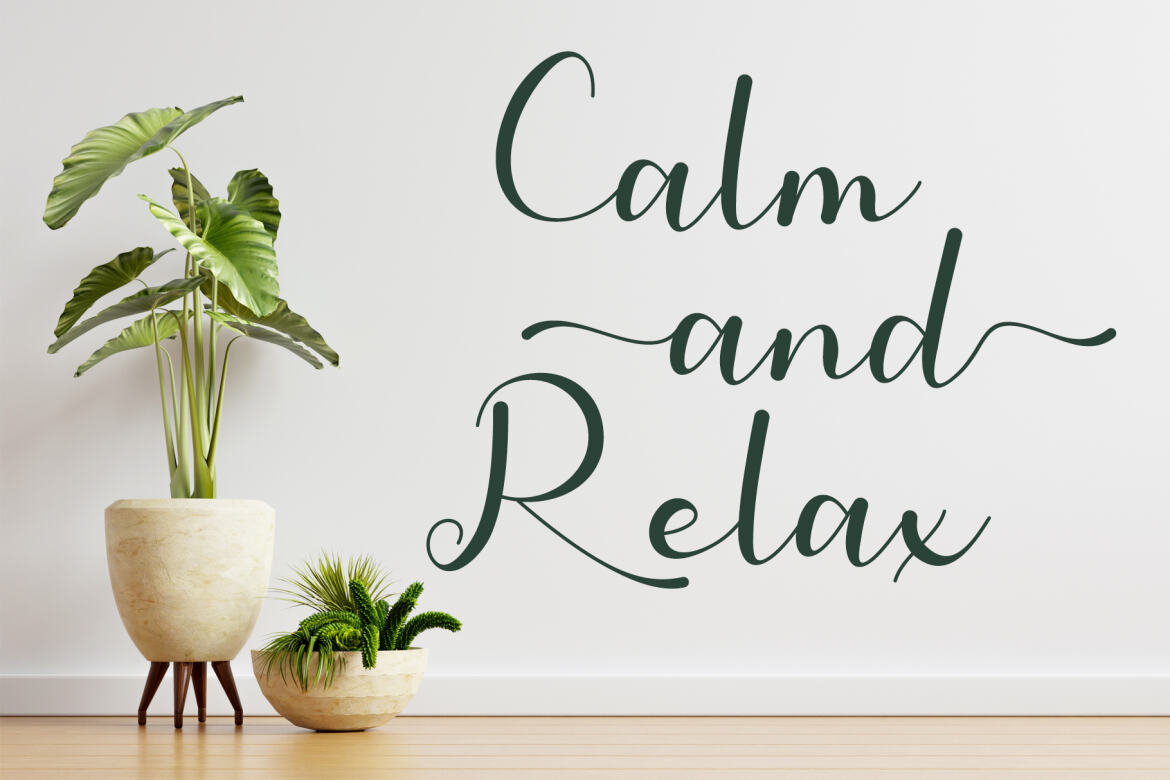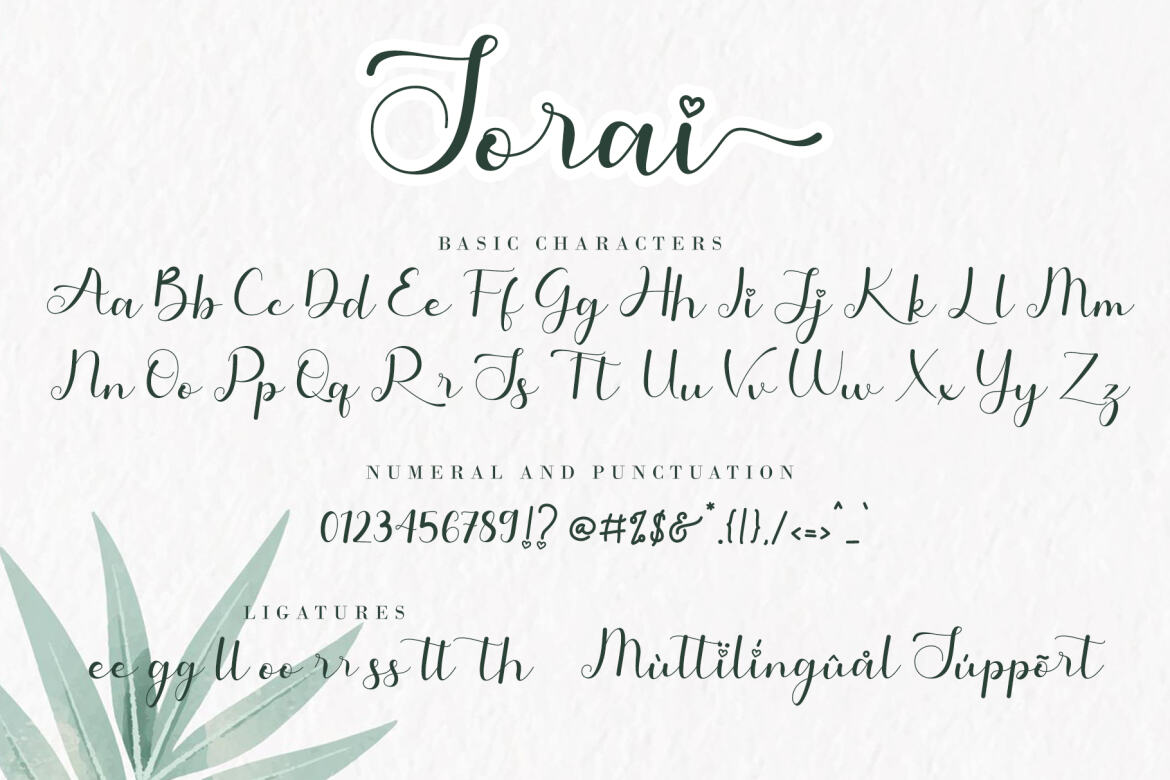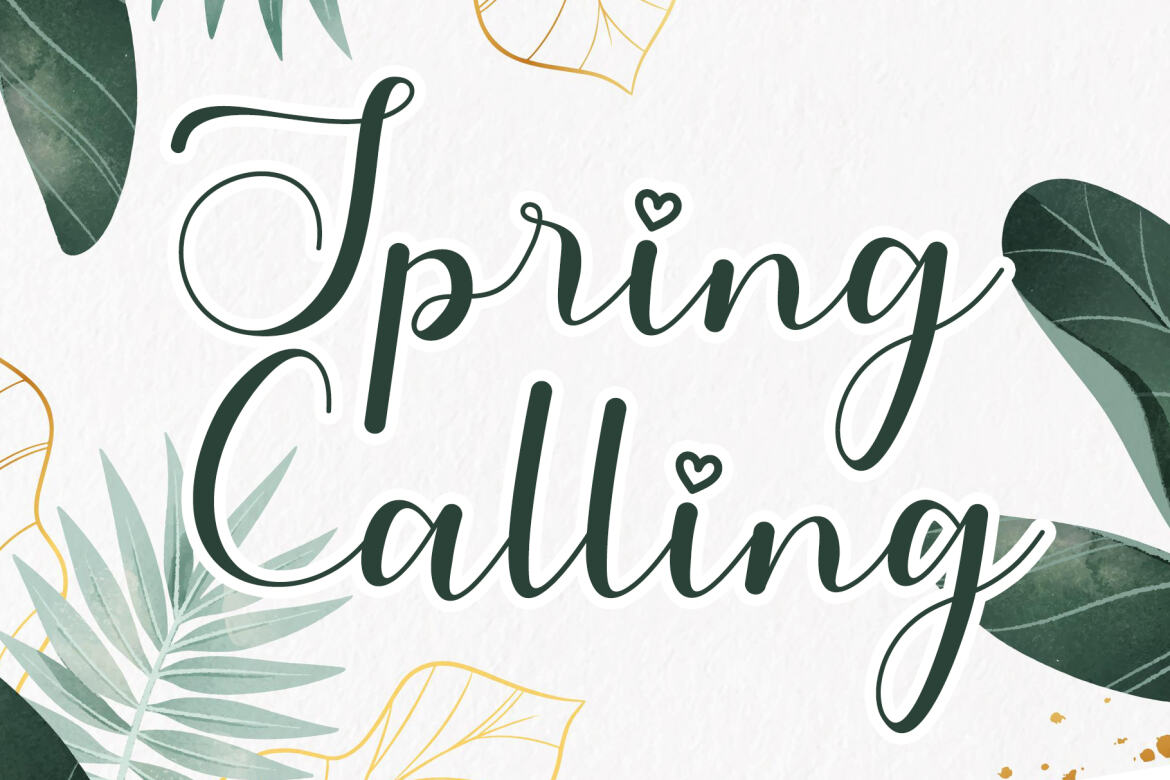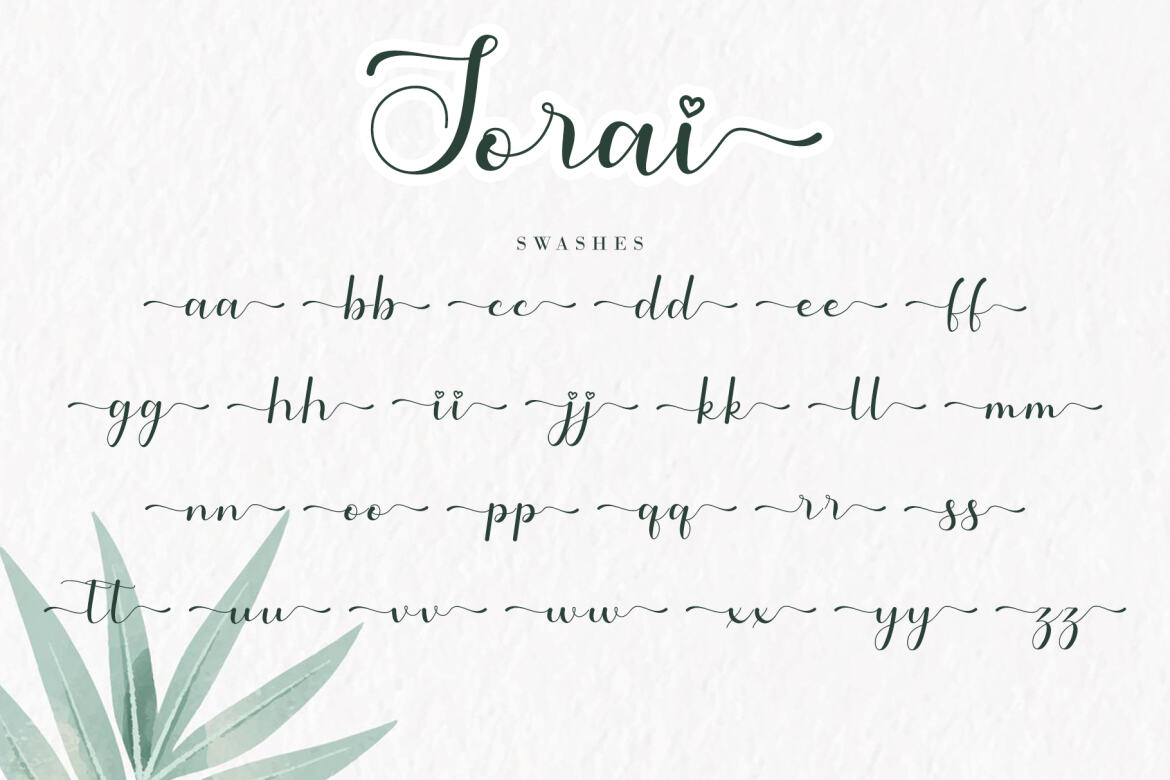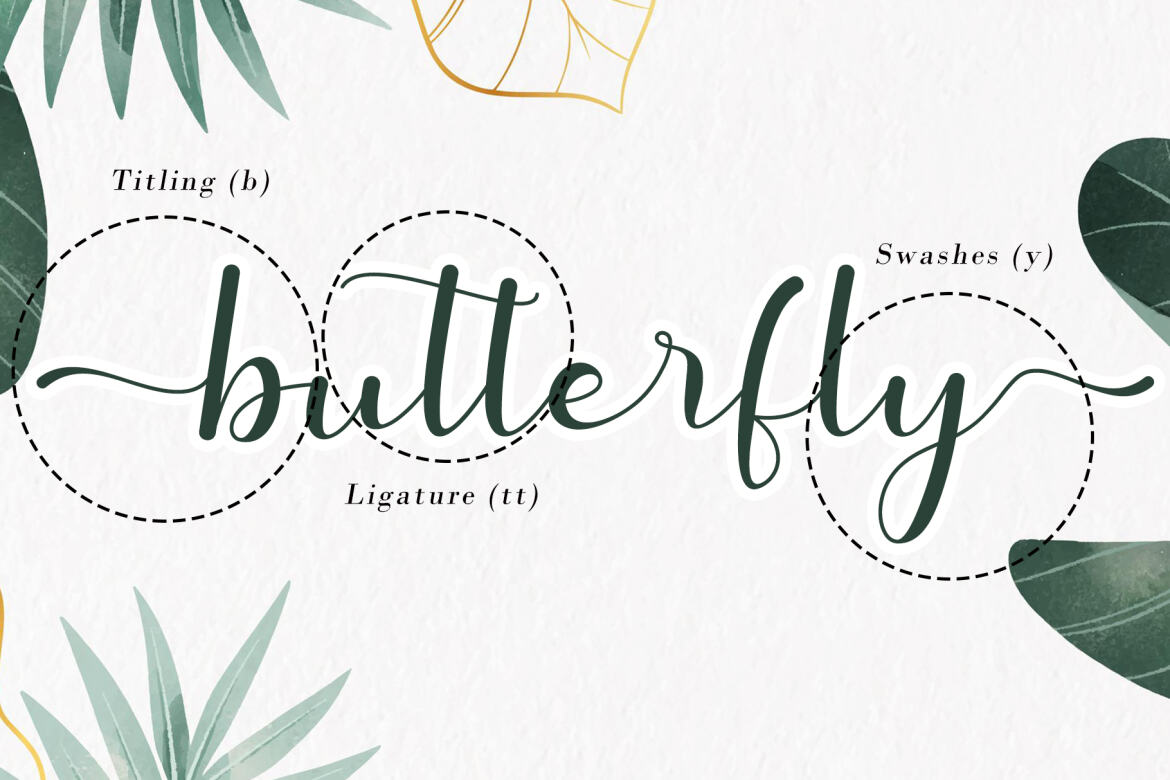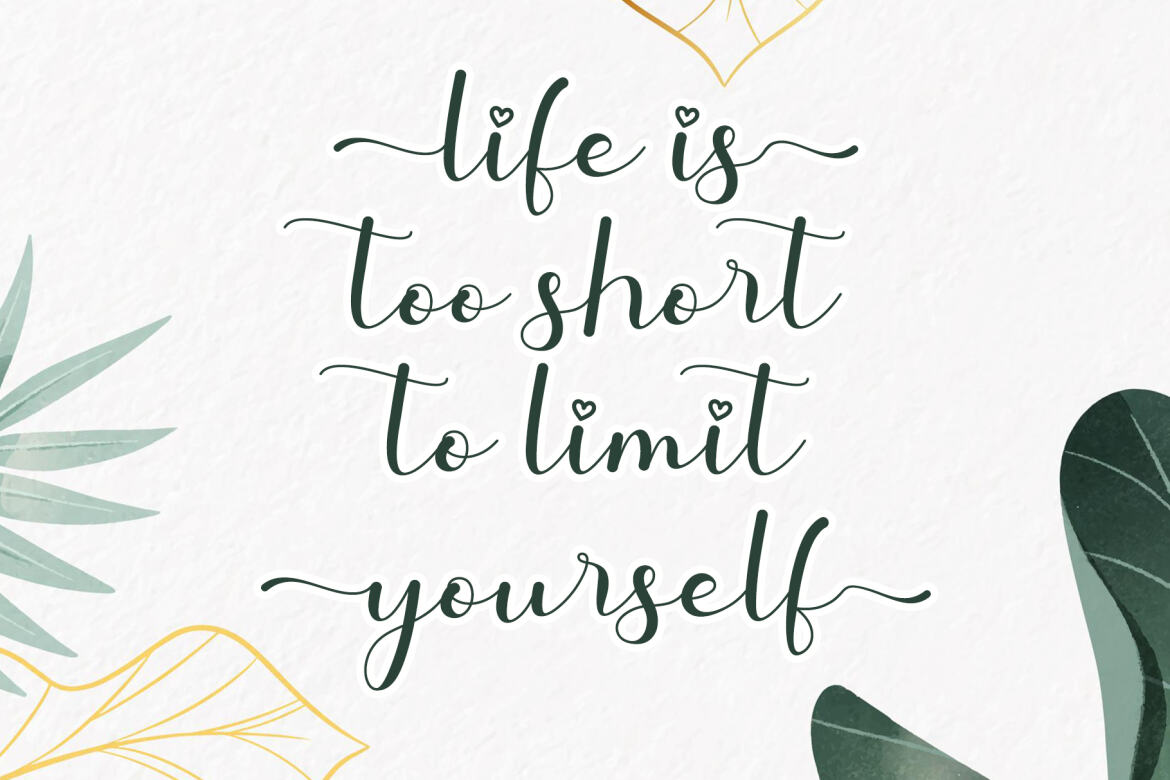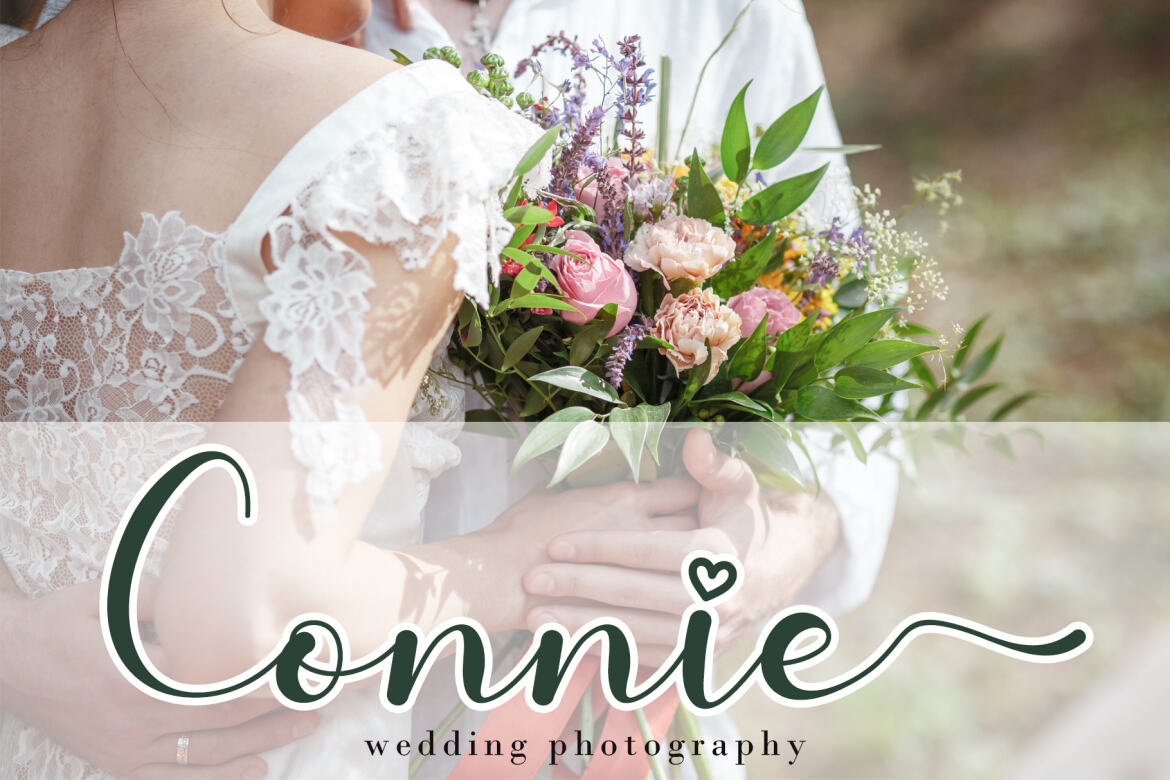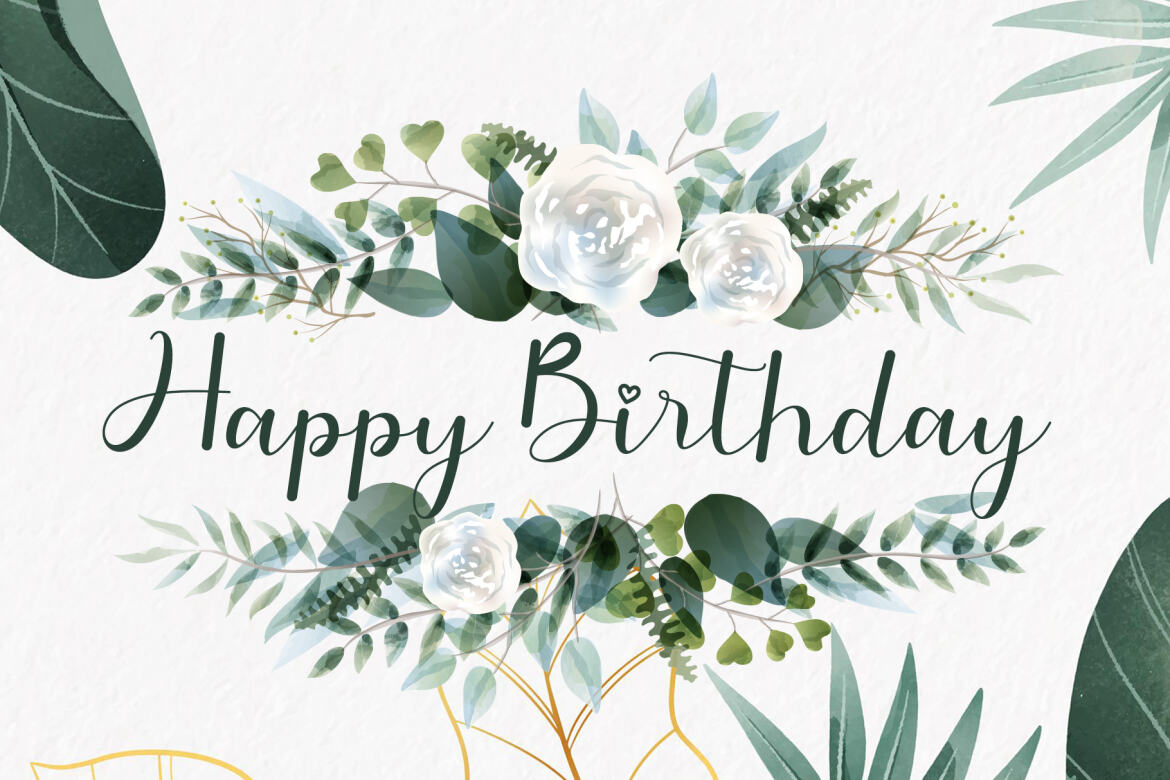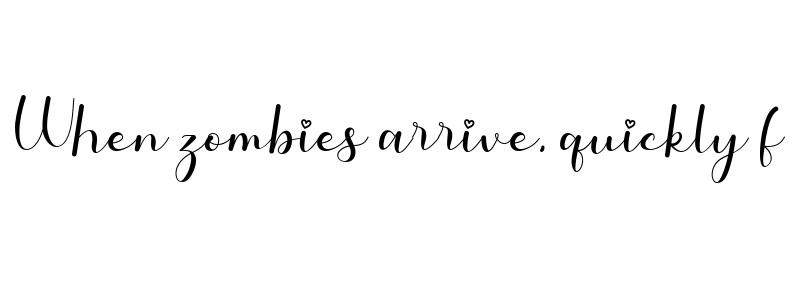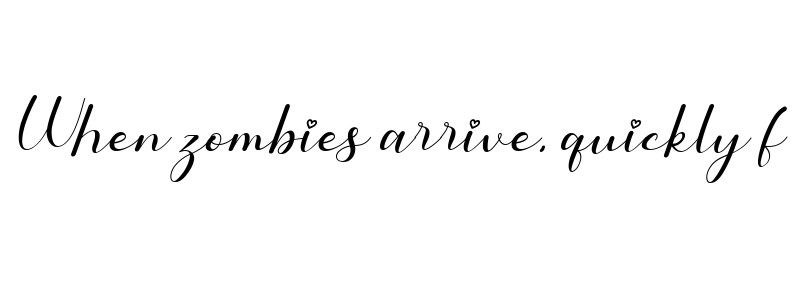
Sorai FREE Script Font
Sorai is a beautiful and romantic script font. Fall in love with its authentic feel and use it to create gorgeous wedding invitations, beautiful logos and stationary art, eye-catching social media posts, cute greeting cards, and many more. This font is PUA encoded, which means you can access all of the glyphs and swashes with ease!
• ligatures, swashes & titiling
• support multilingual; ä ö ü ä ö ü ß ¿ ¡